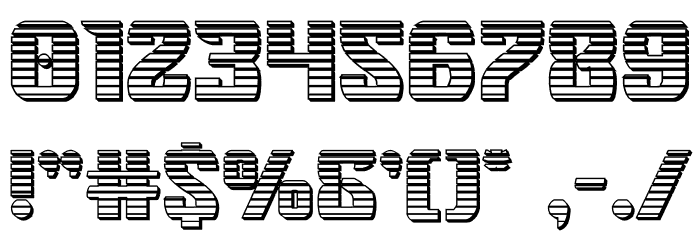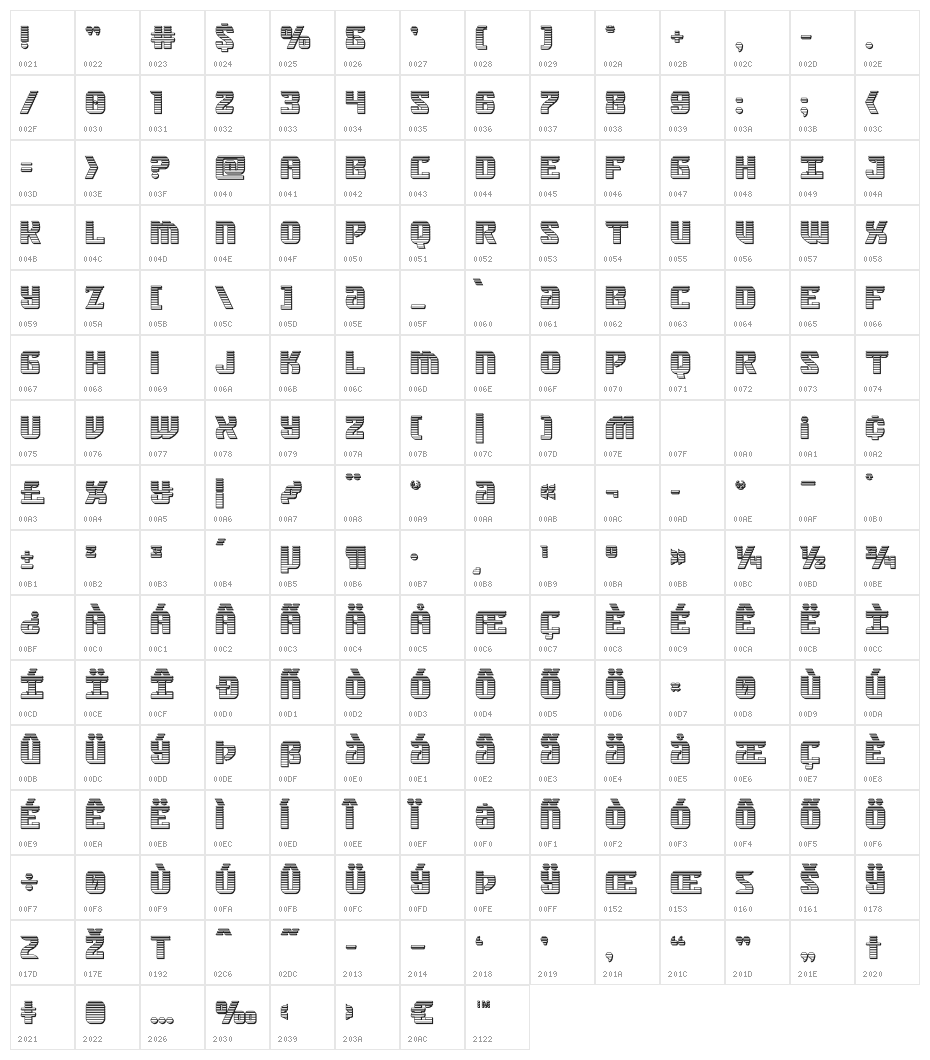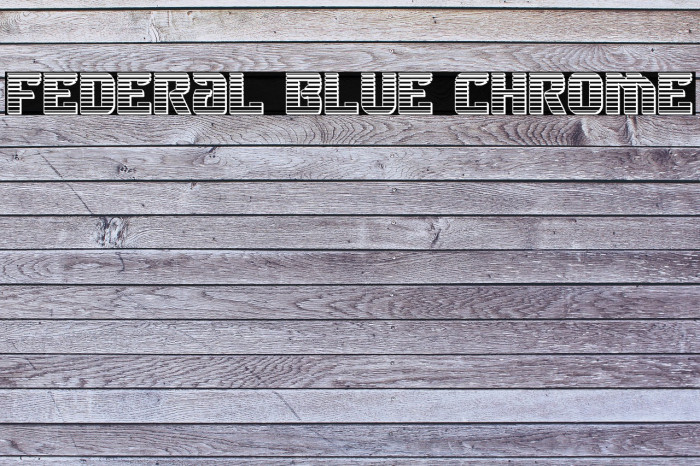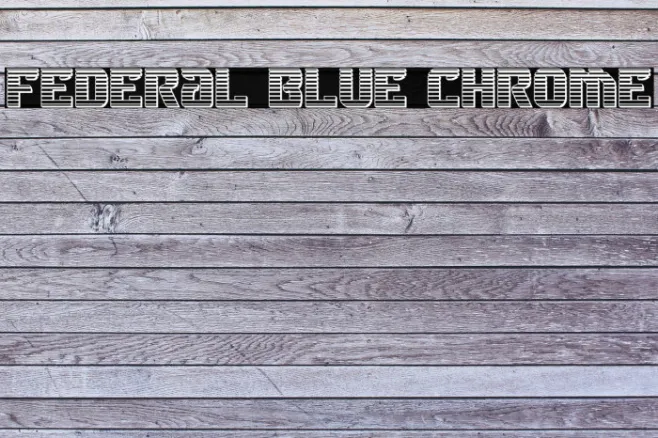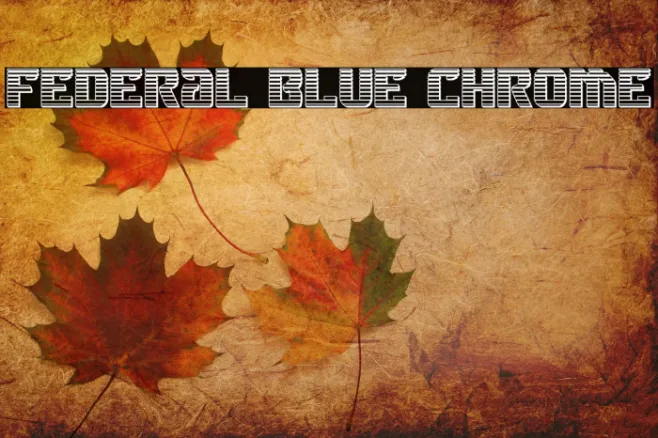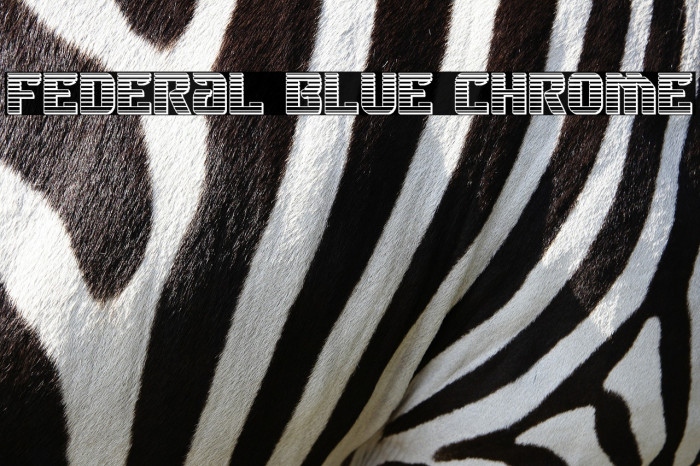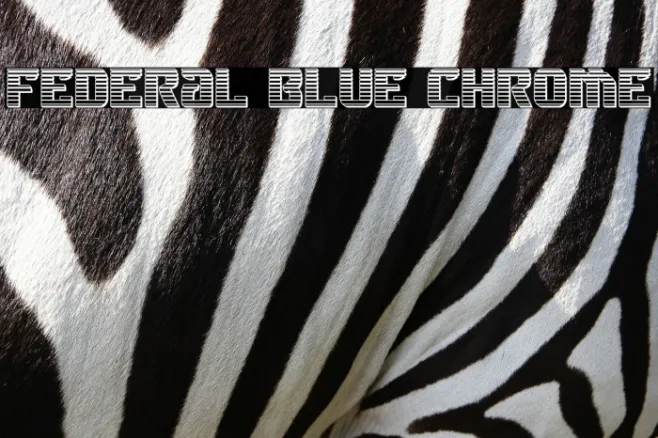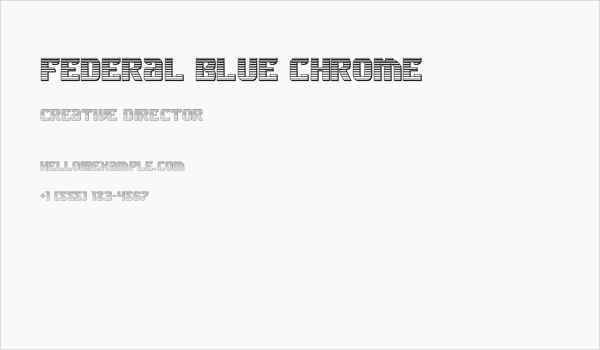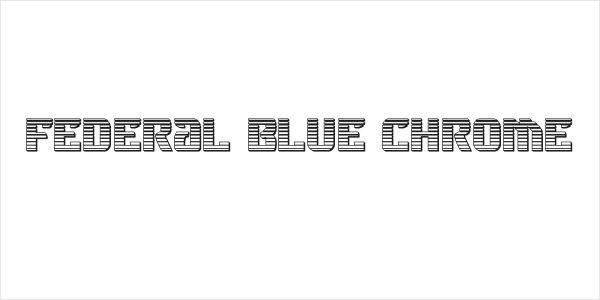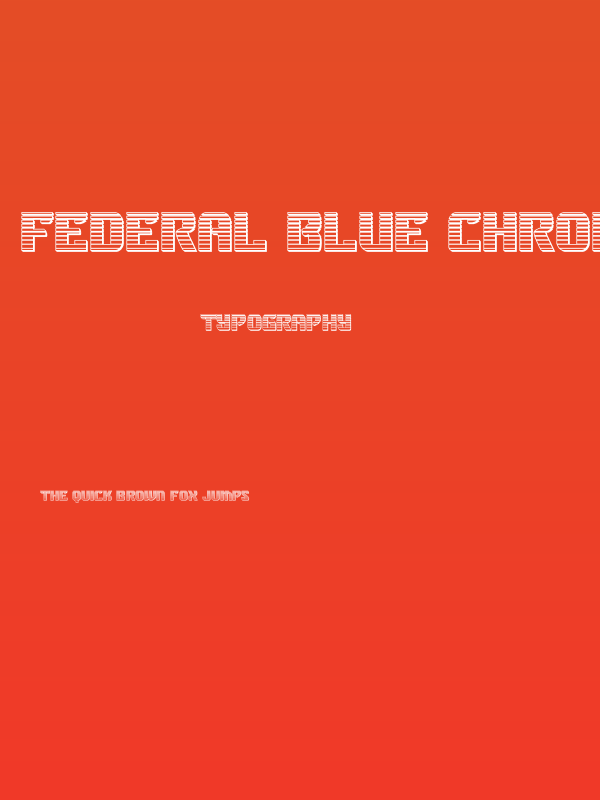
Federal Blue Chrome Font
Federal Blue Chrome Description
This font features a bold, futuristic design with a unique striped pattern running horizontally across each character. The uppercase and lowercase letters maintain a consistent style, characterized by their geometric shapes and sharp angles. The numbers and special characters follow the same design principles, ensuring uniformity throughout. The font's distinct style makes it stand out, with each character appearing as if it is constructed from a series of parallel lines, giving it a three-dimensional effect. This design is both eye-catching and modern, suitable for projects that require a strong visual impact.
| Proposed Projects | Ideal for sci-fi themed designs, technology branding, video game titles, and futuristic posters. |